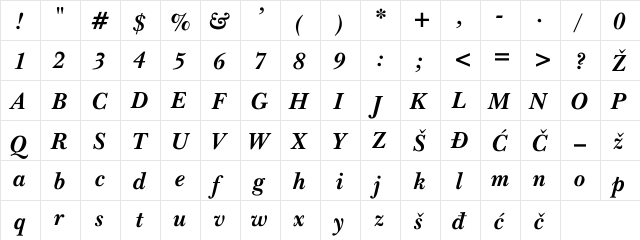
YUBaskervilBI Regular
Design Context for YUBaskervilBI Typeface
YUBaskervilBI takes a measured approach to typography — its balanced proportions and neutral character make it a reliable workhorse for both digital and print work.